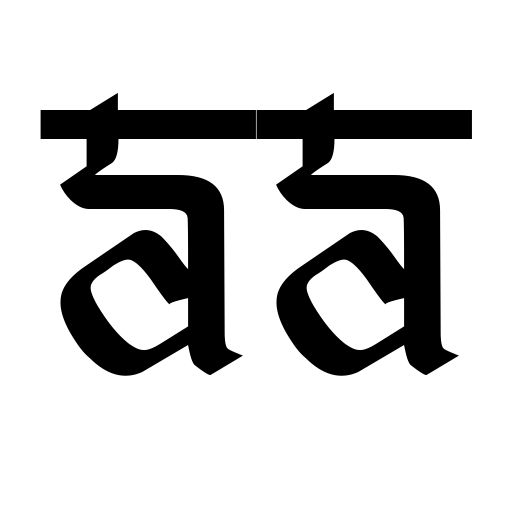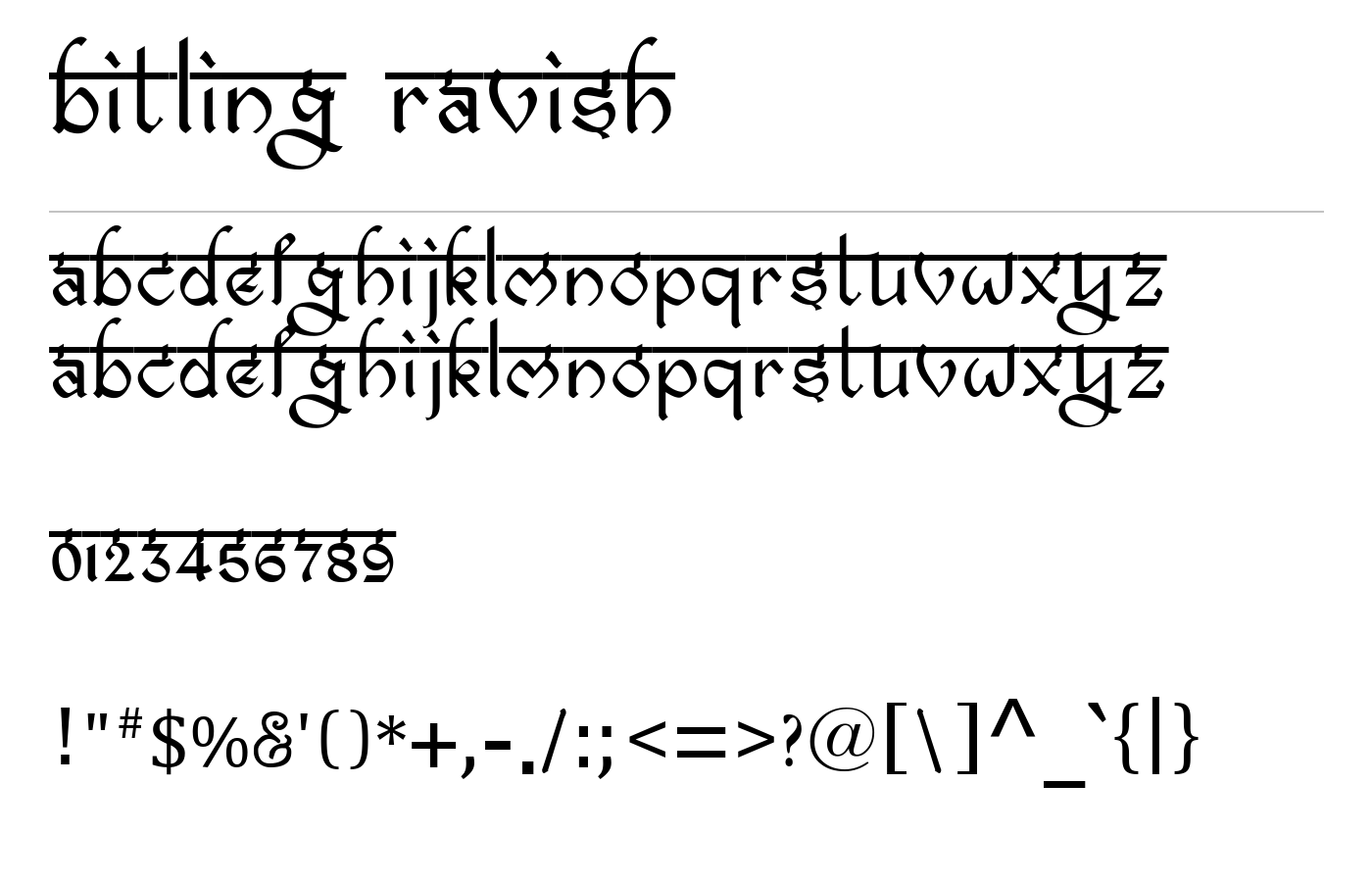
Bitling Ravish is a distinctive serif font with a calligraphic, almost Gothic flair, featuring sharp, angular strokes and unique, ornamental letterforms. Its moderate weight and medium contrast give it a dramatic and sophisticated personality, making it ideal for artistic headlines, vintage-inspired branding, or decorative uses where a strong, stylish impression is desired. This font works best in design projects that seek an elegant yet bold statement, combining tradition with a modern, edgy twist.
bitling ravish Font
About bitling ravish Font